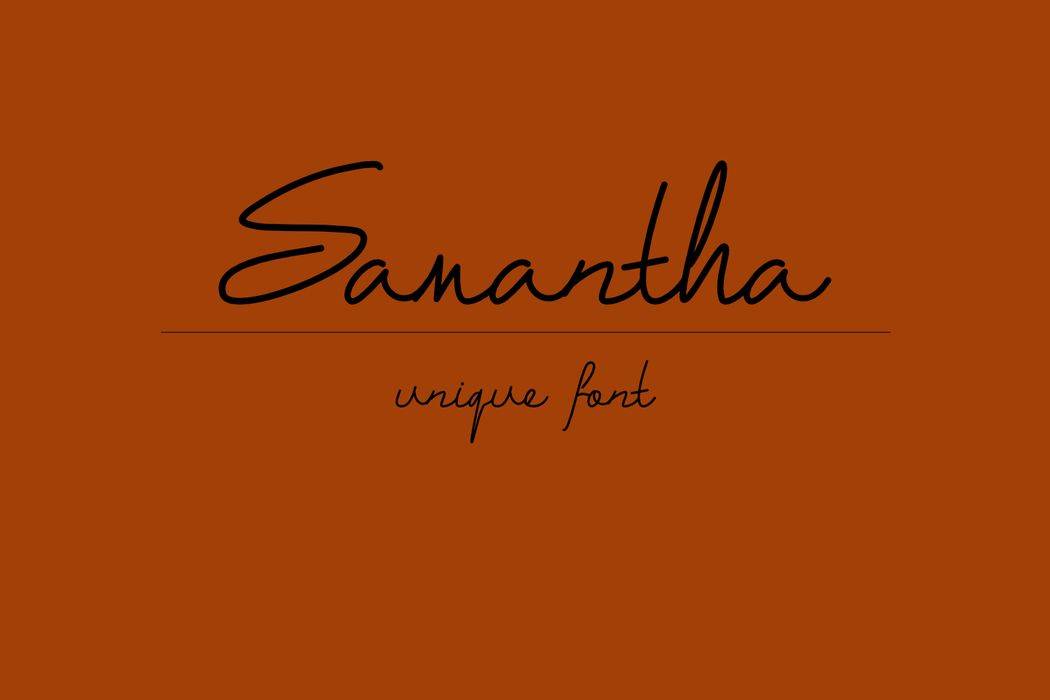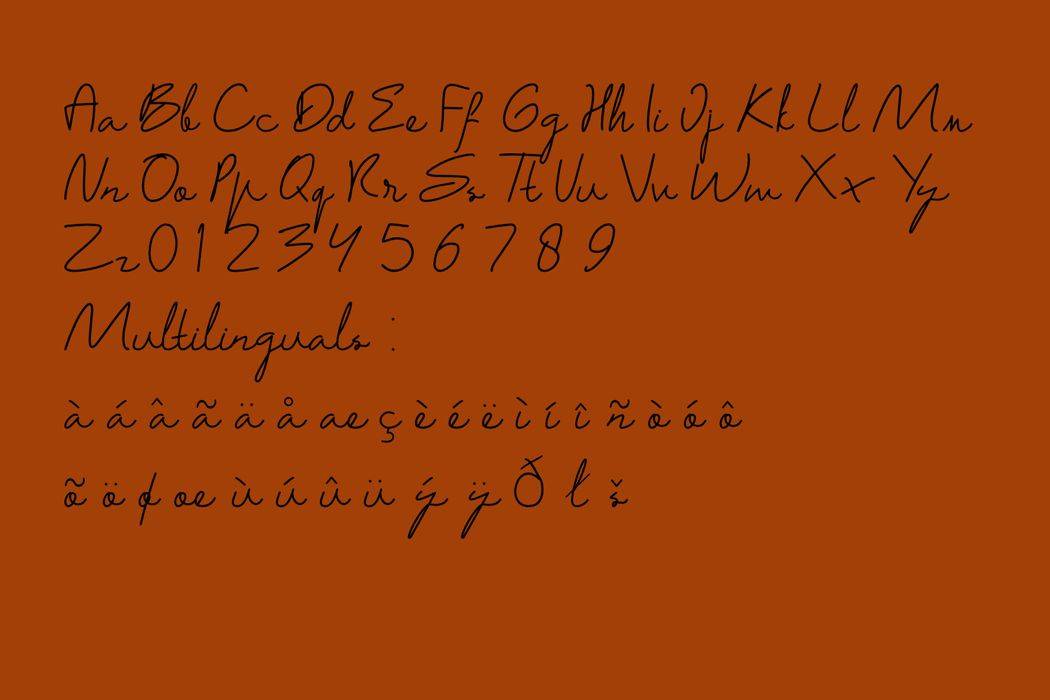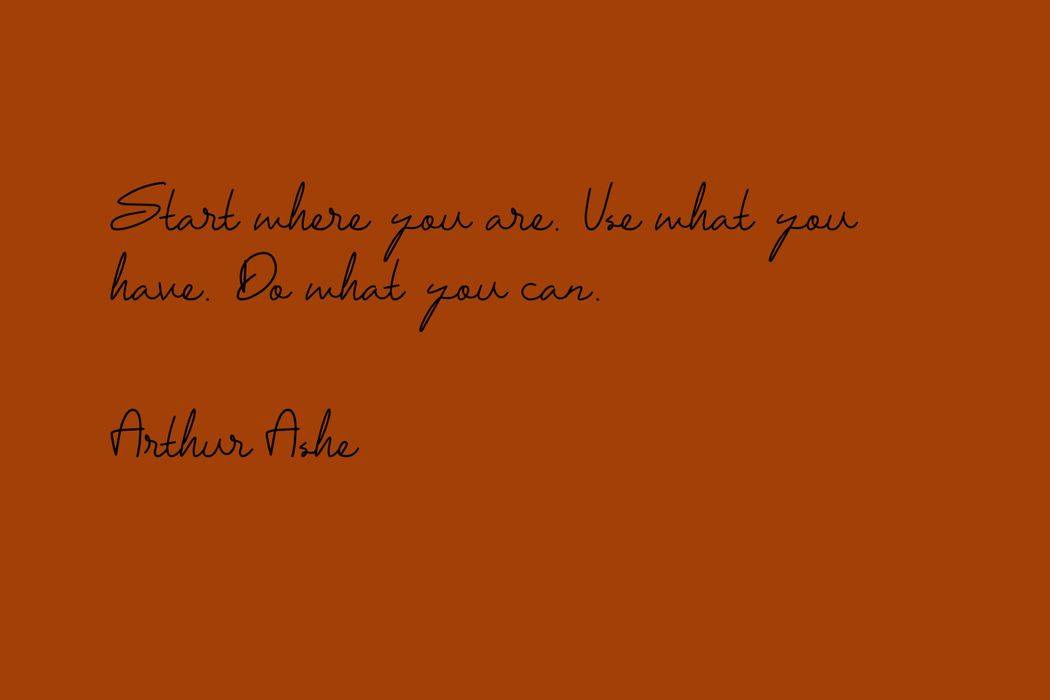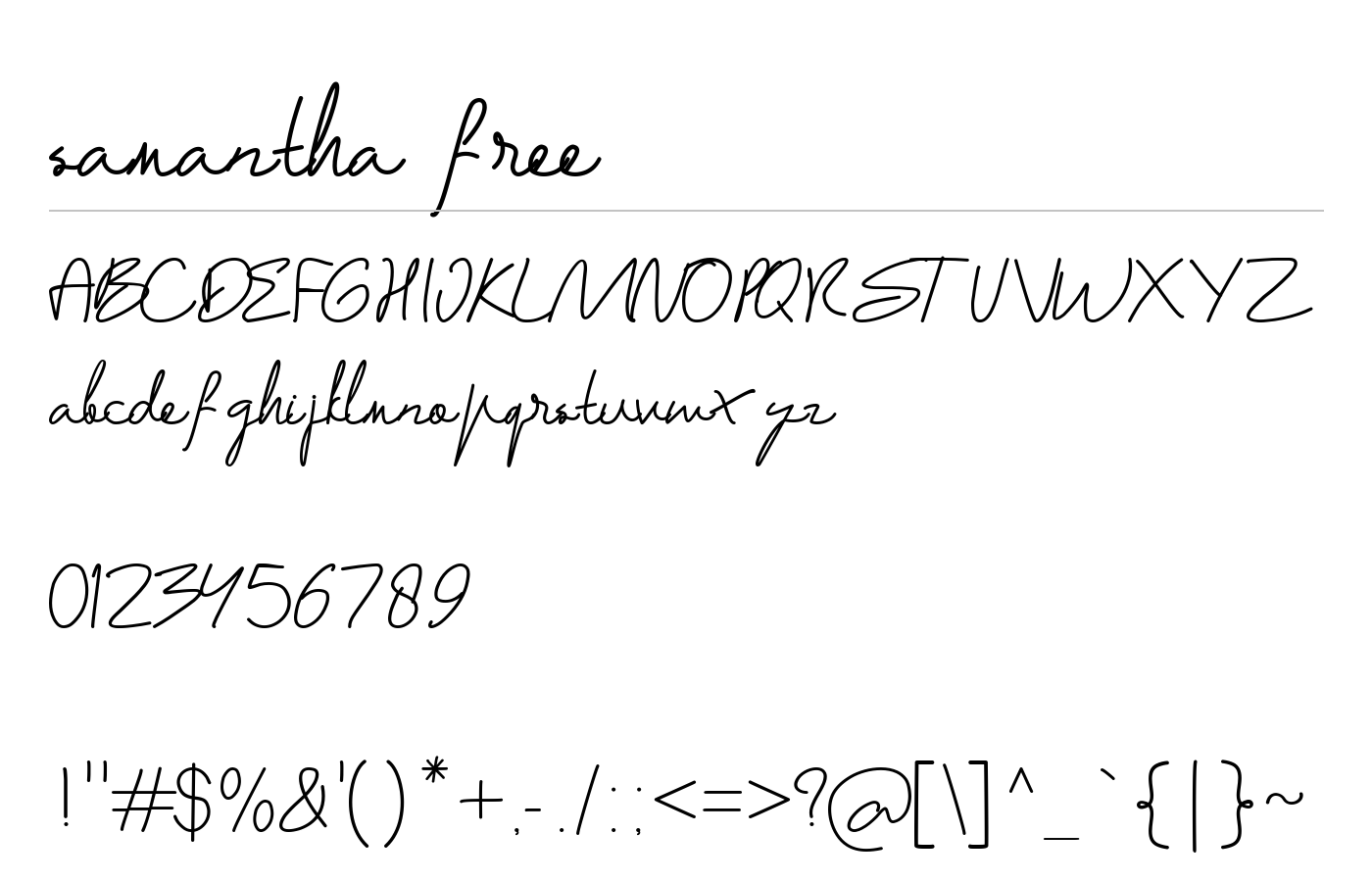
Samantha is a light, handwritten script font with a playful yet elegant feel, featuring tall, slender letterforms and a casual, organic flow. Its delicate strokes and lively character shapes make it perfect for creative projects like invitations, branding, and social media, where a personal and approachable touch is desired. This font works beautifully in designs that seek a friendly and expressive style without sacrificing readability.
Samantha Font
About Samantha Font